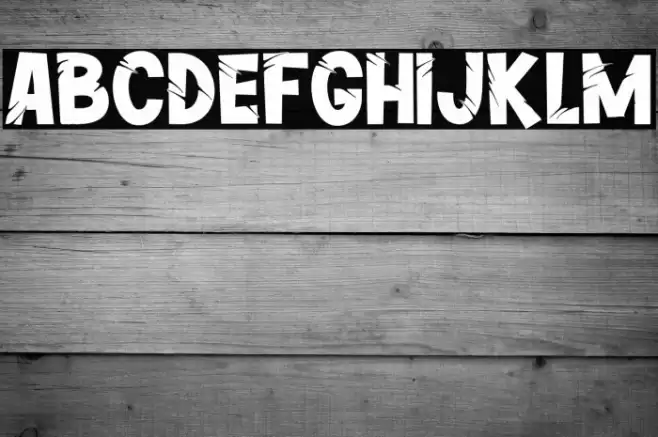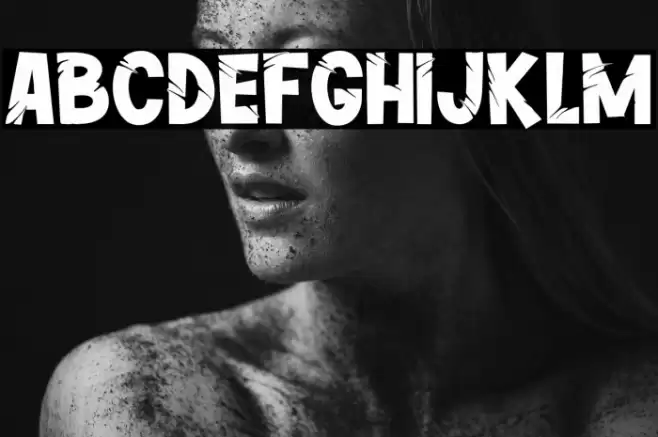
Greywall Font
Greywall Description
This font features a bold and dynamic design with a distressed, grunge-like appearance. Each character is marked by irregular cuts and scratches, giving it a rugged and edgy feel. The uppercase and lowercase letters maintain a consistent style, with thick strokes and sharp angles. The numbers and special characters follow the same aesthetic, ensuring a cohesive look across all elements. This font's unique style makes it stand out, perfect for projects that require a strong visual impact.
A bold, distressed font with a rugged, edgy appearance from Uncategorized fonts.
- Font: Greywall
- Proposed Projects: Ideal for posters, album covers, streetwear branding, and any project needing a bold, gritty aesthetic.
- Overall Style: Grunge, Edgy, Bold